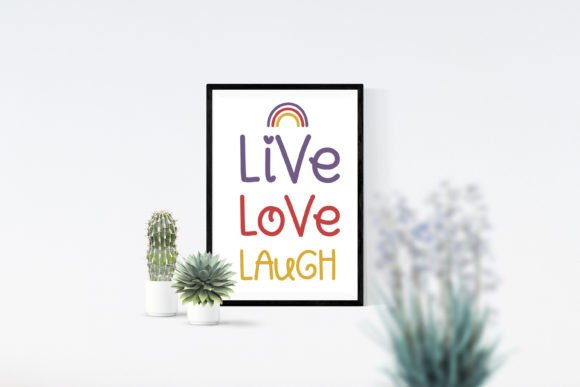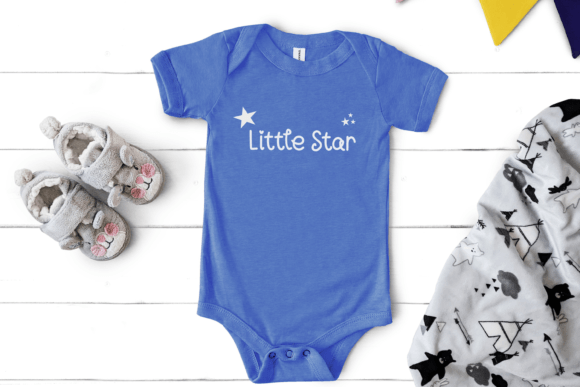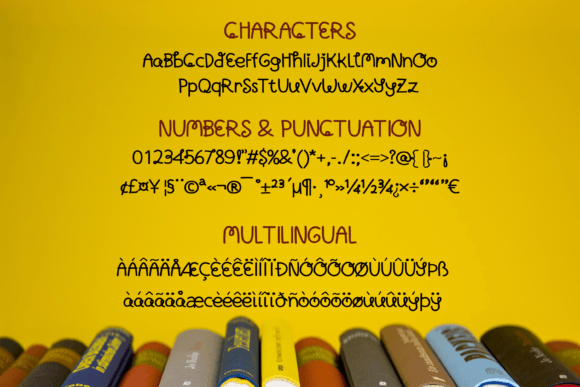
Introduction to Mimiti Font
Remember the thrill of finding the perfect font to elevate your creative project? It’s that moment when everything falls into place, and your design starts to shine. For designers, the right font can be the difference between a good design and a great one. And, if you’re looking for a font that adds a touch of whimsy and fun, look no further than the Mimiti Font.
This adorable handwriting font is perfect for adding a playful twist to your designs. Whether you’re creating cards, posters, or digital designs, Mimiti Font is sure to bring a smile to your audience’s face. With its high-quality design and transparent background, it’s a valuable resource for designers who want to add a personal touch to their projects.
Key Features of Mimiti Font
- Features a transparent background, allowing for easy layering and customization in designs.
- Designed with a unique, modern aesthetic, making it ideal for contemporary creative projects.
- Resolution-independent, ensuring crisp and clear text rendering at any display resolution.
Honest Review: Mimiti Font
As a designer, I’m always on the lookout for high-quality design resources that can elevate my creative projects. Recently, I came across the Mimiti Font, and I’m excited to share my honest review with you.
What works well: ✨ The Mimiti Font is incredibly versatile, with a wide range of styles and weights that make it perfect for various design applications. I particularly love its clean and modern aesthetic, which works beautifully for both digital and print designs. The font is also highly customizable, allowing me to easily adjust the size, color, and spacing to fit my design needs.
- High-quality: The font is well-designed and rendered, ensuring a crisp and clear appearance on any device.
Limitations: ⚠️ While the Mimiti Font is an excellent choice for most design projects, it may not be the best option for complex typography or intricate designs. Additionally, some users may find the font’s modern aesthetic to be too minimalist or simple for their taste.
Overall impression: I’m thoroughly impressed with the Mimiti Font, and I would highly recommend it to any designer looking for a reliable and high-quality design resource. With its versatility, customizability, and free download, it’s an excellent addition to any design toolkit.
For the best results, use the Mimiti Font in conjunction with a high-quality design. Experiment with different font sizes, colors, and alignments to create a unique look. You can also combine the Mimiti Font with other design resources to create a cohesive and professional design.
Common Use Cases for Mimiti Font